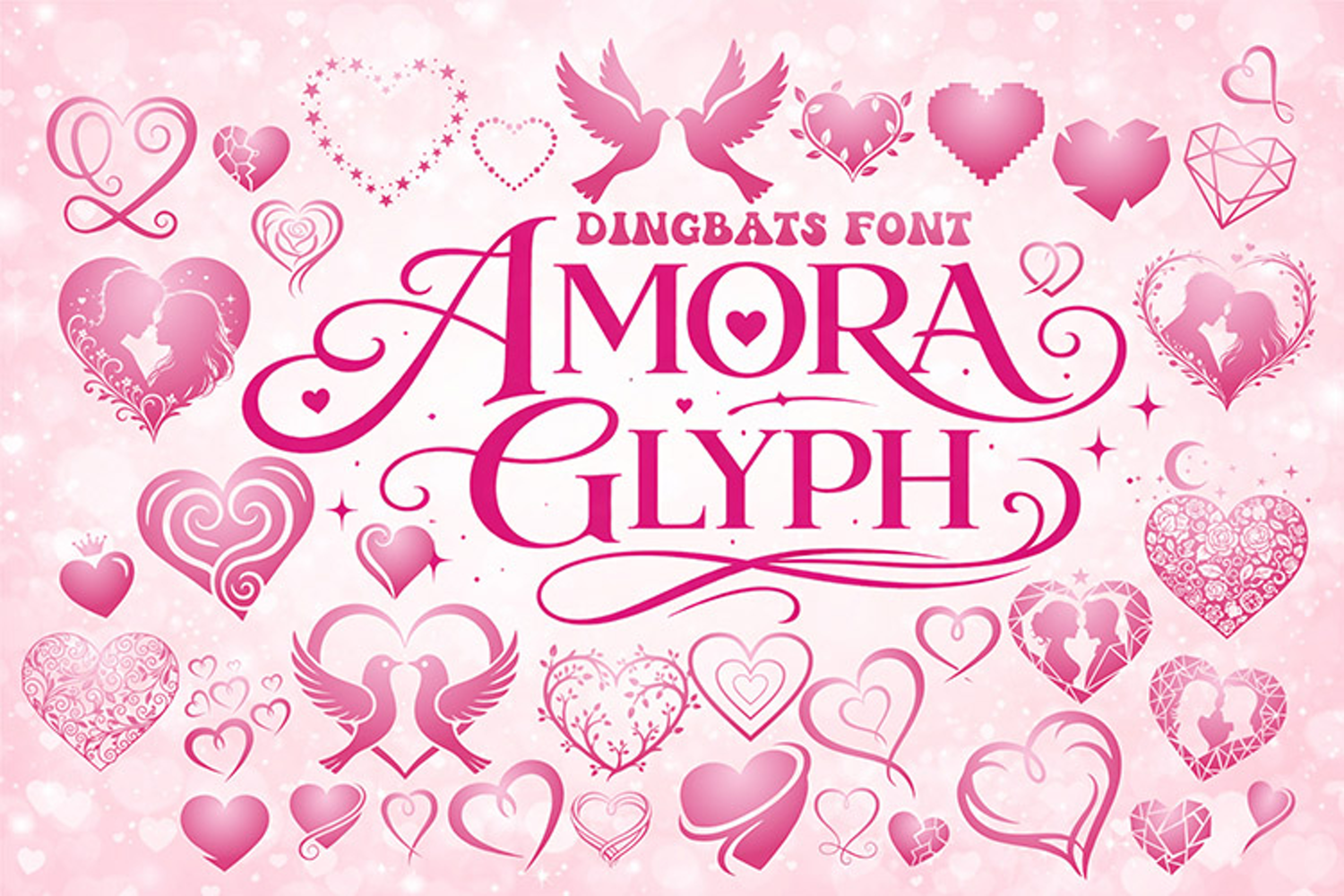
Amora Glyph Font
Amora Glyph
AmoraGlyph is a romantic dingbats font featuring elegant silhouette symbols inspired by love, devotion, and timeless affection.
This font is carefully designed with graceful curves and balanced forms, making it perfect for Valentine’s Day designs, wedding invitations, engagement cards, anniversary projects, and romantic branding.
Each glyph captures the beauty of love through hearts, couples, flowers, rings, kisses, and symbolic ornaments — all presented in clean, artistic silhouettes.
AmoraGlyph works beautifully as decorative elements, logos, frames, patterns, and visual accents that elevate emotional storytelling.
Whether you are designing for weddings, love-themed events, greeting cards, or luxury romantic branding, the AmoraGlyph dingbats font brings warmth, elegance, and intimacy to every composition.